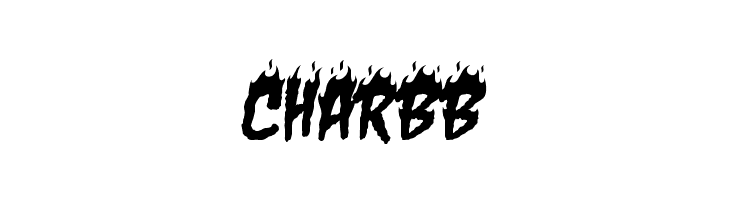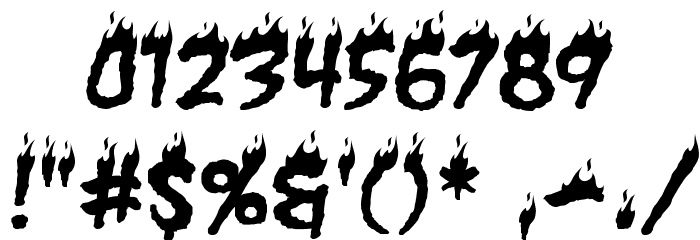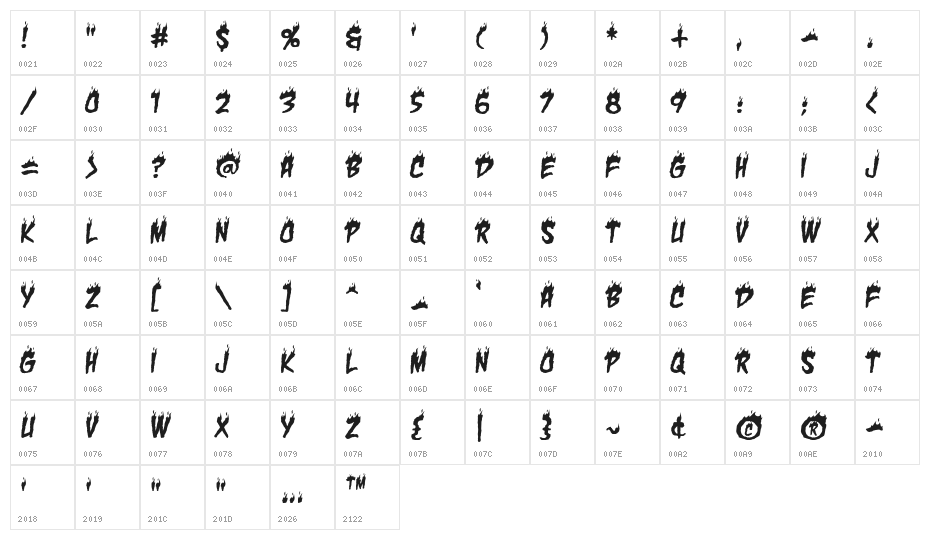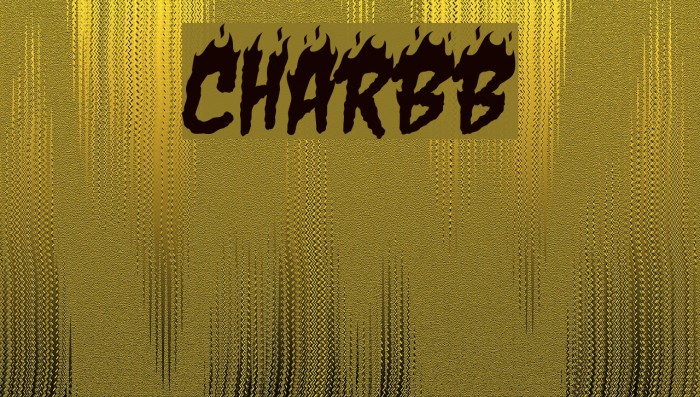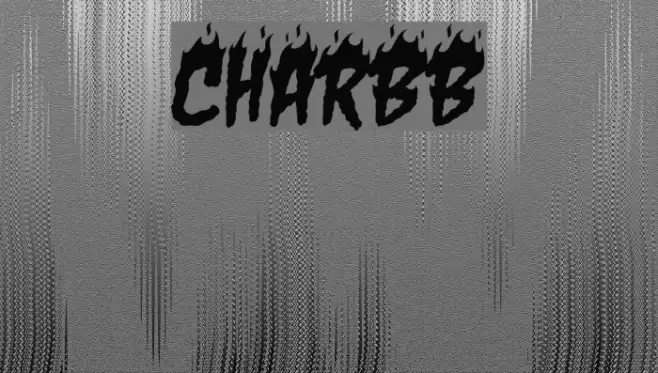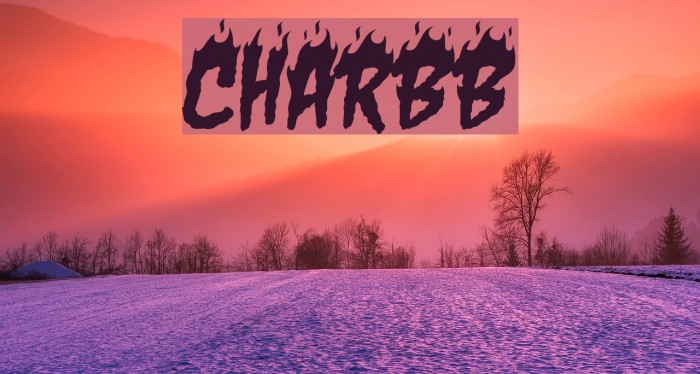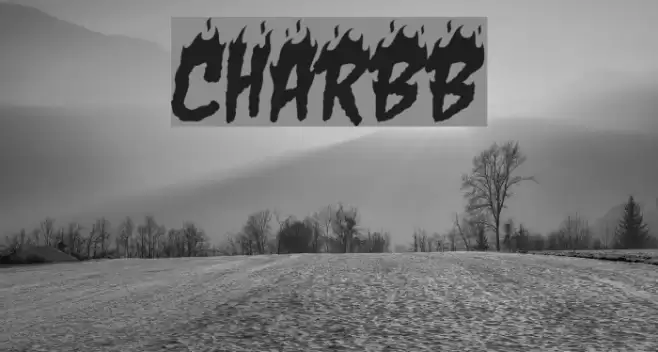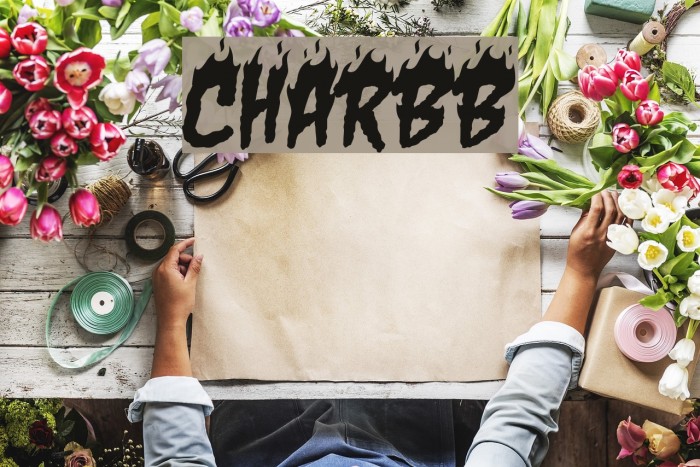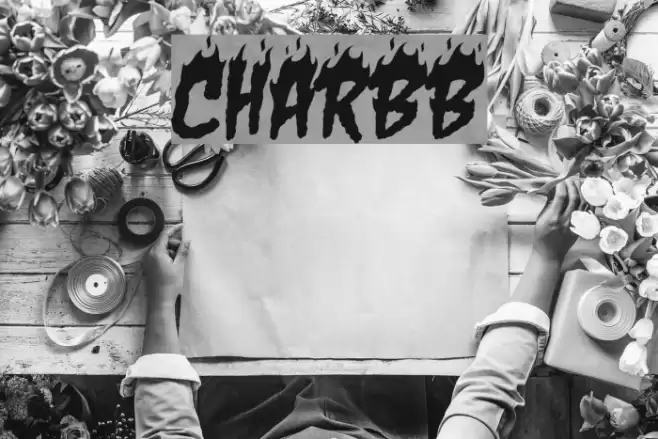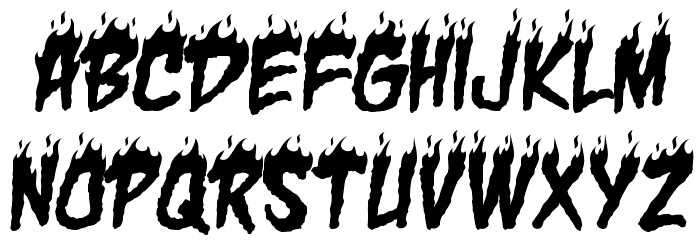
CharBB Font
CharBB Description
This font features a bold and dynamic design with letters that appear to be engulfed in flames, giving it a fiery and energetic appearance. The characters are uppercase and lowercase, with numbers and a variety of special symbols. The strokes are thick and irregular, enhancing the dramatic effect. The overall look is intense and eye-catching, making it suitable for projects that require a strong visual impact. The font's unique style is perfect for themes related to fire, energy, or excitement.
| Proposed Projects | Ideal for posters, event flyers, video game titles, and any design needing a fiery, energetic theme. |